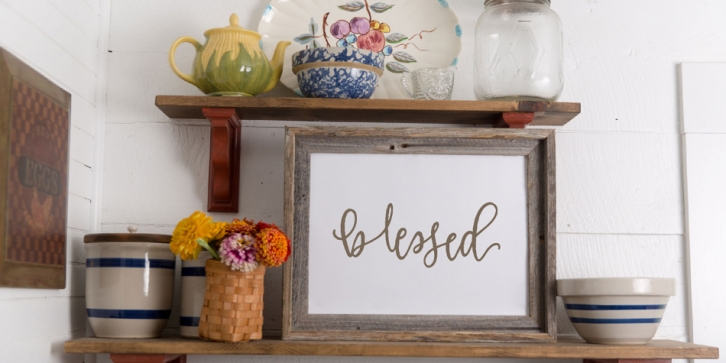
Designed by Tiffany Willett, Milktea is a script and modern calligraphy font published by On The Spot Studio.
Introducing the newest script from OTSS : MilkTea
MilkTea is based loosely on my personal hand lettering, including a lot of alternates and ligatures. You will need open type software (or software that allows you to access your glyphs or character map) in order to utilize MilkTea to its fullest!
- 50+ ligature combos for even more unique lettering
- FULL set of lowercase alternates.
- 14 Handlettered Rustic Words in SVG format for use on crafting and other materials!